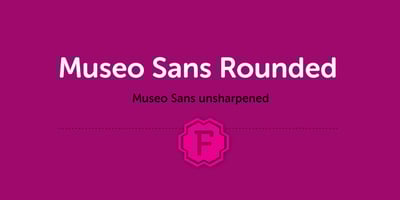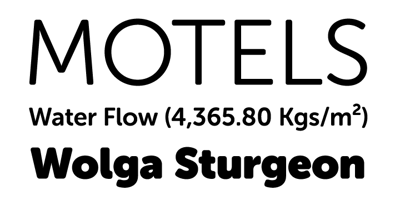
exljbris
Dutchman Jos Buivenga already had an impressive following when he and his foundry, exljbris, joined MyFonts in 2008. For years, his online friends and fans were able to witness and comment on the development of his typefaces on his website and download the beta versions at no cost at all.
When he transformed his free site into a one-man foundry, he debuted his first commercial typeface in an unprecedented, and ultimately, very successful way. With this typeface, Museo, Jos became the first designer to offer several weights in an extended font family for free. “I had to take into account that most people who knew me, knew me for my free fonts,” he said in his Creative Characters interview, “so my guess was that it would be best to offer more free than paid weights.”
His generosity paid off. Museo became a sensational best seller on the strength of the paid fonts alone and the typeface was named one of MyFonts Top Ten Fonts of 2008. “I decided to offer the three middle, most common weights for free. And that was received better than I could have imagined.”
And with that, his foundry took off. His sophomore font, Museo Sans, proved to be even more successful than its predecessor. It too was named one of our Top Ten Fonts of 2008. The true indicator of the success of this typeface, though, is the incredible longevity of its stay on our Best Sellers list. Released in 2008, the font is still a best selling typeface.
Considering the enormous success that the self-taught designer has seen, it’s amazing to think that his career started off with just simple intrigue. “I just wanted to know,” he says, “what it would feel like to use a font of my own on my first Mac.”